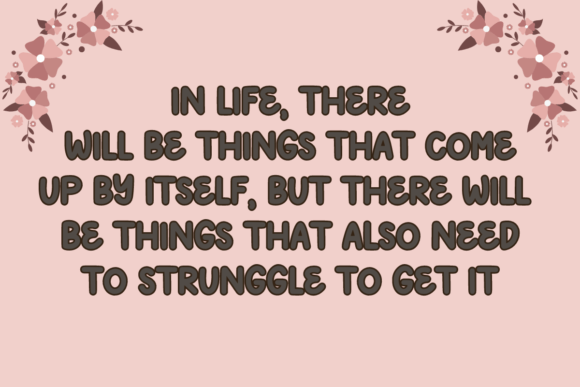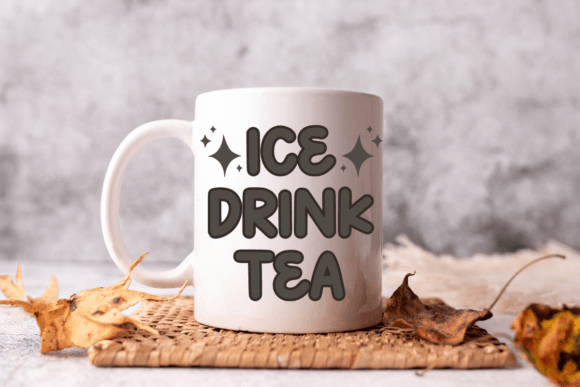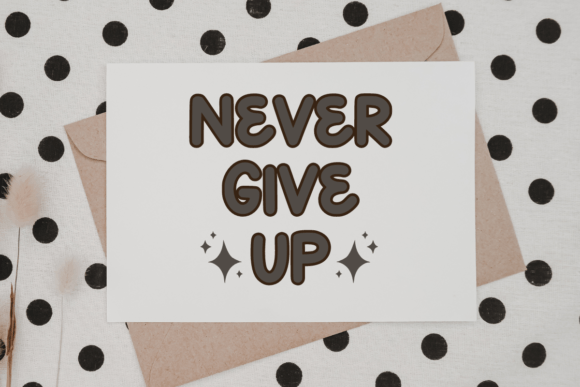
Introduction to High Value Font
High Value is designed with a cute and fun sans serif font style.
It’s charming, strange, and a little quirky This would be awesome for your fun projects or cute diary planner.
Why Choose High Value Font?